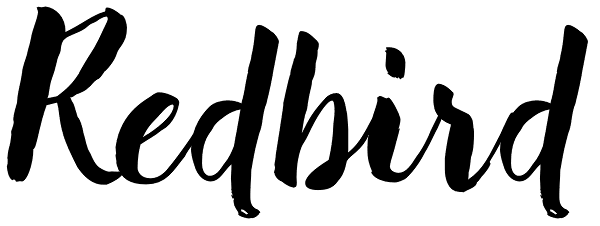
Redbird
Redbird is a modern hand-painted script with an irregular baseline. Rough edges and imperfect lines give to this brush font a unique and trendy look. All glyphs have been carefully painted giving your words a wonderful flow. Fat and thin stroke in...